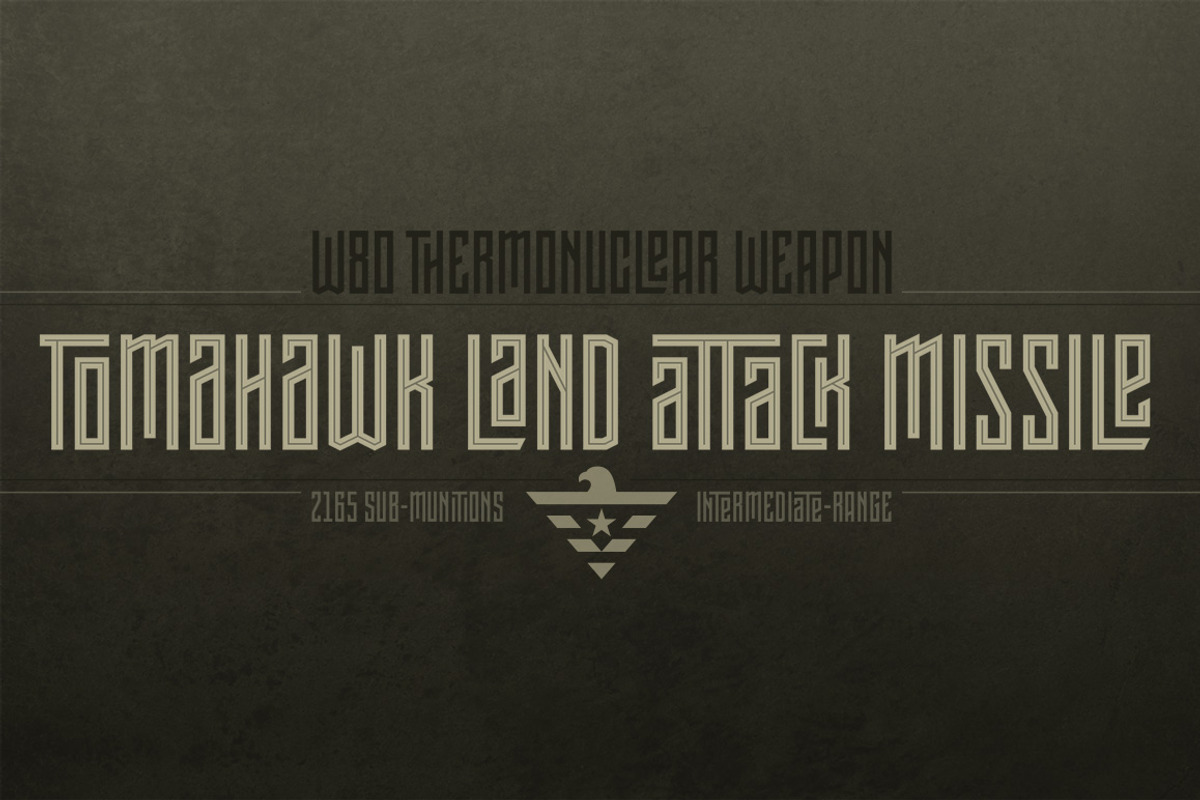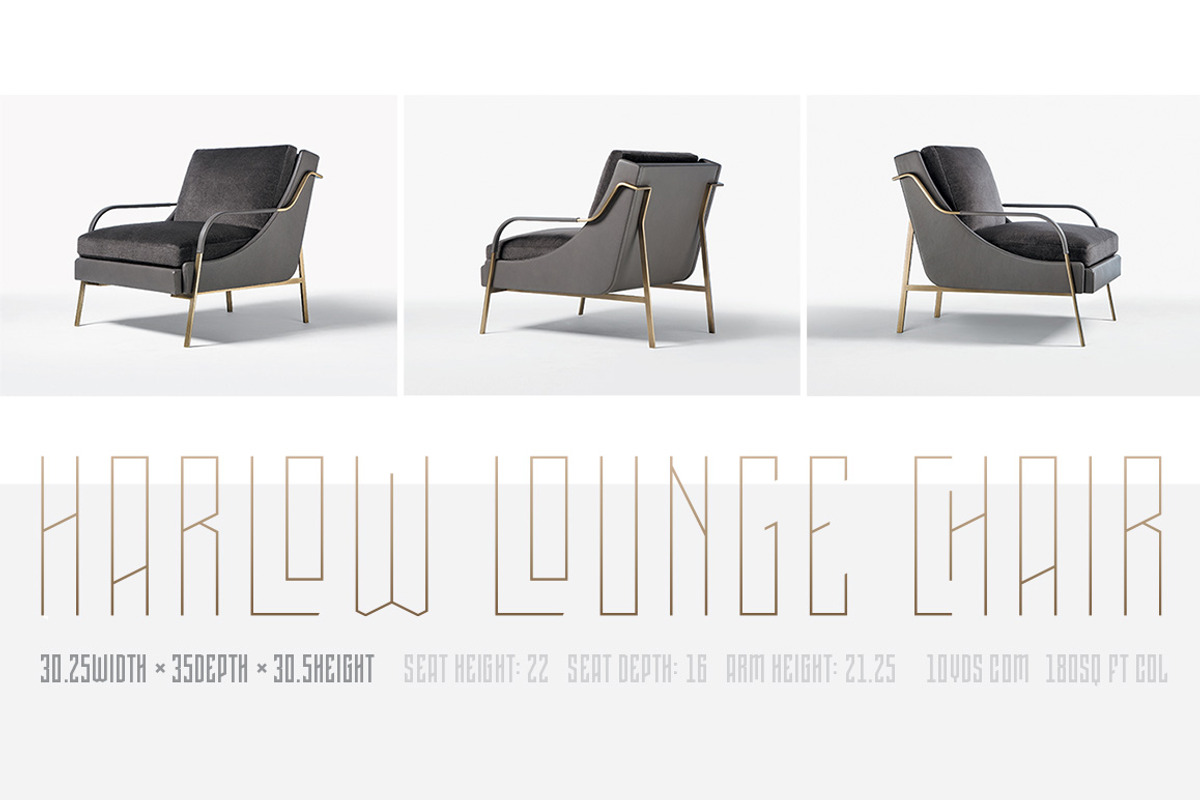
Pocketknife
Pocketknife is a simple grid-based titling font on it’s surface, but it has a surprisingly prolific set of features under the surface. The most notable of these features is an abundant set of ligatures that give Pocketknife it’s unique look. There are very few kerning pairs contained within Pocketwatch, and these ligatures fill in most gaps that could be created by letters with more empty space, such as L and T, and also give a more playful look to an otherwise sharp-edged typeface. Pocketknife also contains with 2 full sets of alternate characters, one pairing with the uppercase set and one pairing with the lowercase—available as OpenType stylistic alternates or individually in the Glyphs panel. Pocketknife Regular is designed to be used on it’s own, while the Inline and Base fonts are designed to be used as a simple layered combination. The Base font is nearly identical to Regular, but contains a few specially adjusted characters that better accommodate the Inline style. Pocketknife Outline is a combination of the Inline/Base styles, to be used individually.
Pocketknife is sharp, but playful. Simple, but sophisticated. Sporty, technical, and aggressive, yet elegant and fun. Pocketknife, while simple at first glance, is a deceivingly versatile typeface.